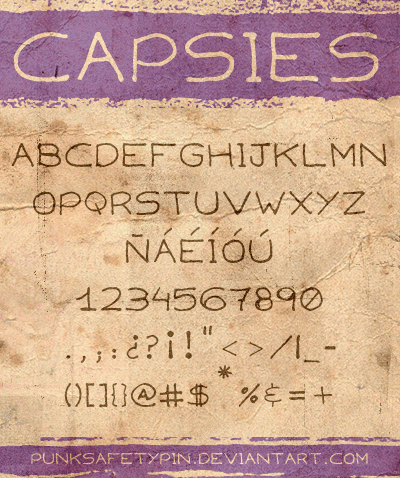
Font name: | Capsies |
Author: | Romina Chamorro |
Note by Romina Chamorro | |
My first try at making fonts. Just something really quick and kinda sloppy. But since I sometimes find not-so-good fonts to be useful for certain things, I thought I should share this one. |